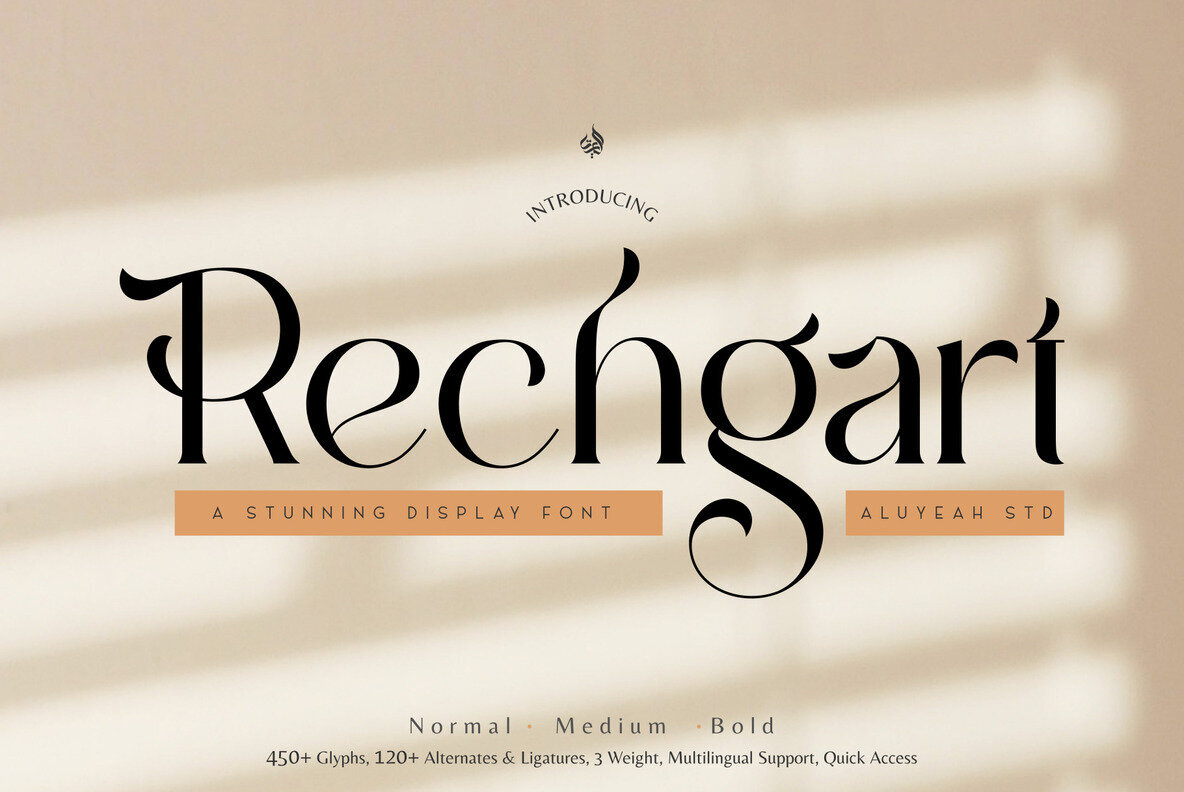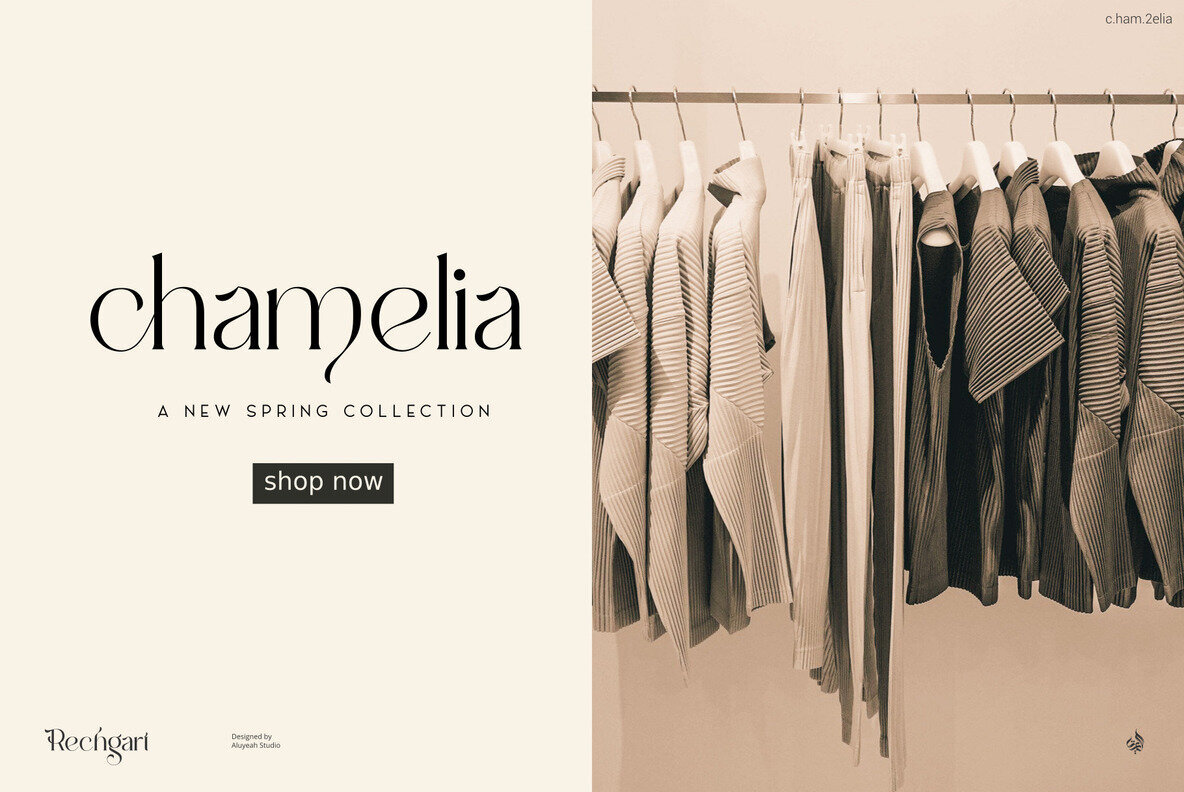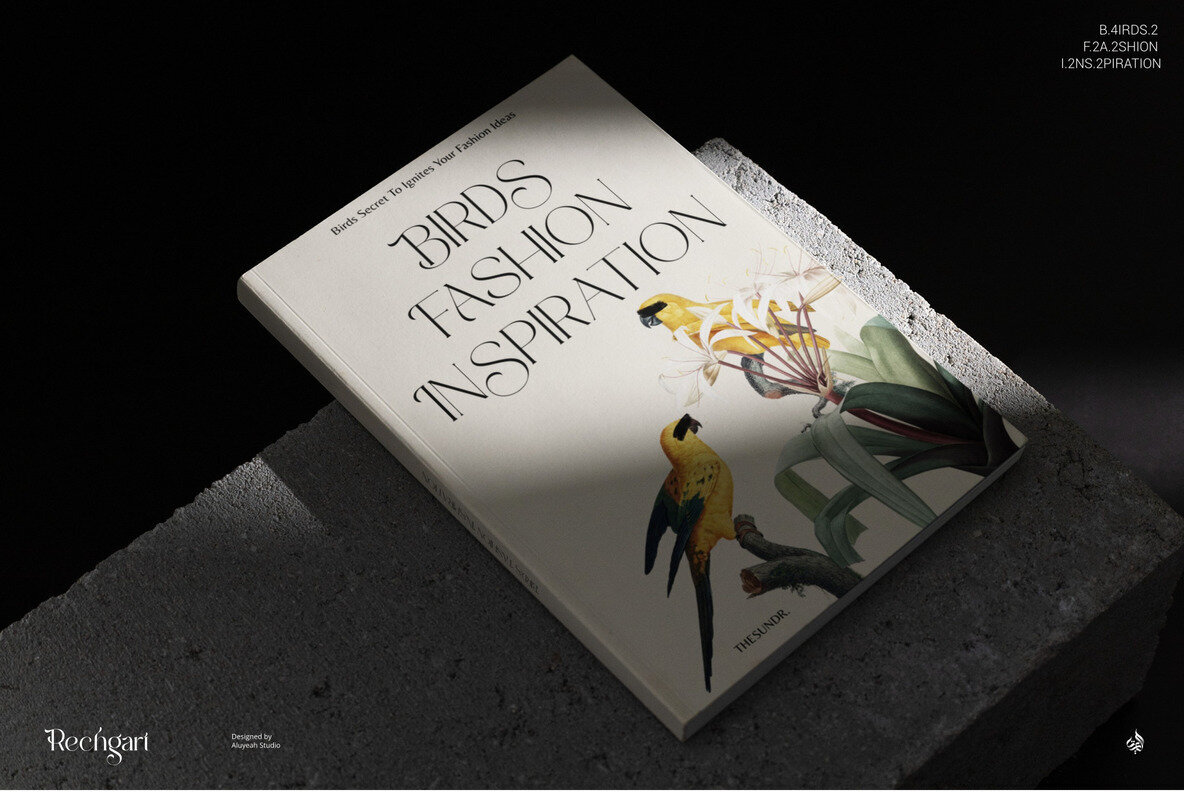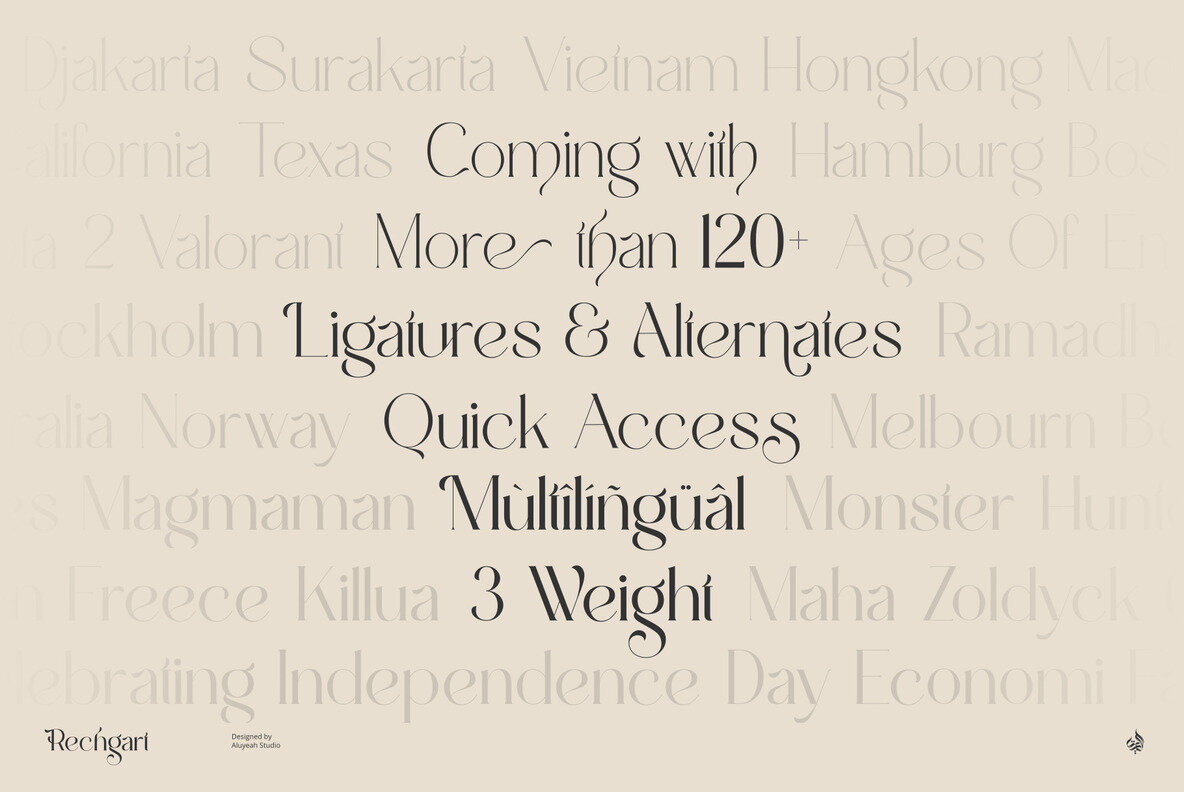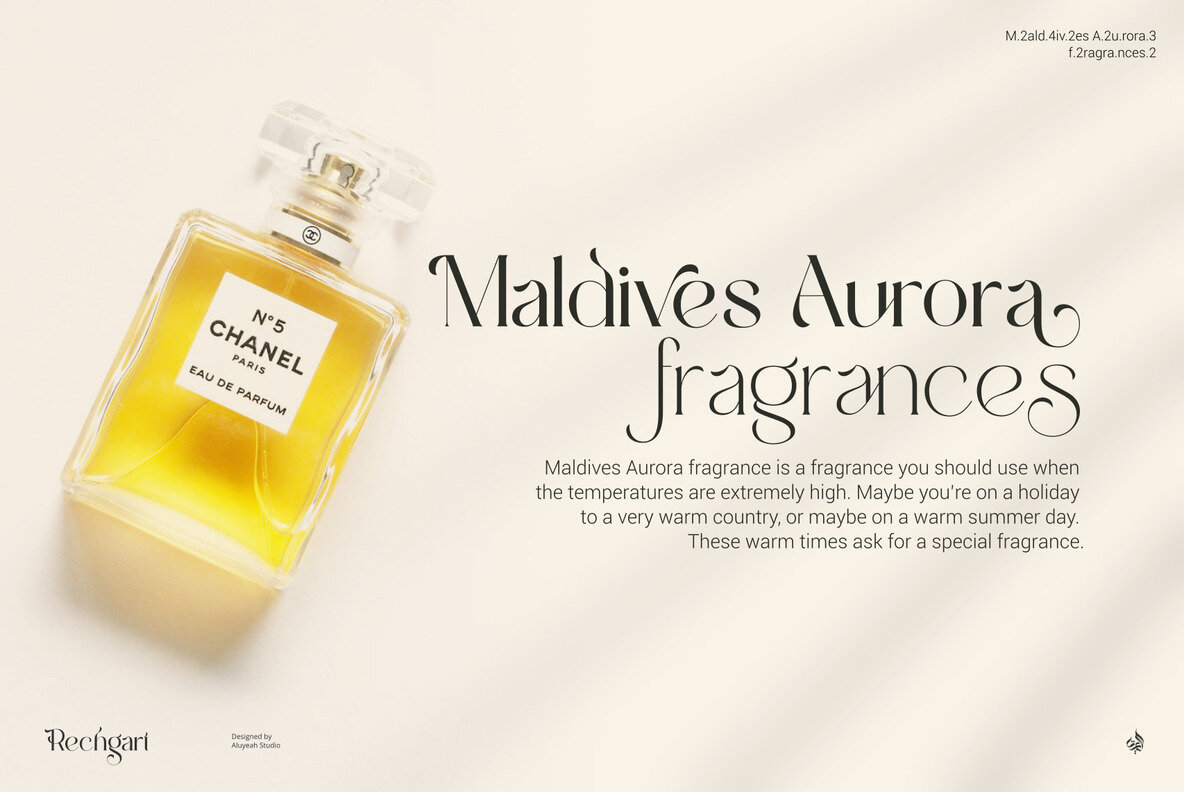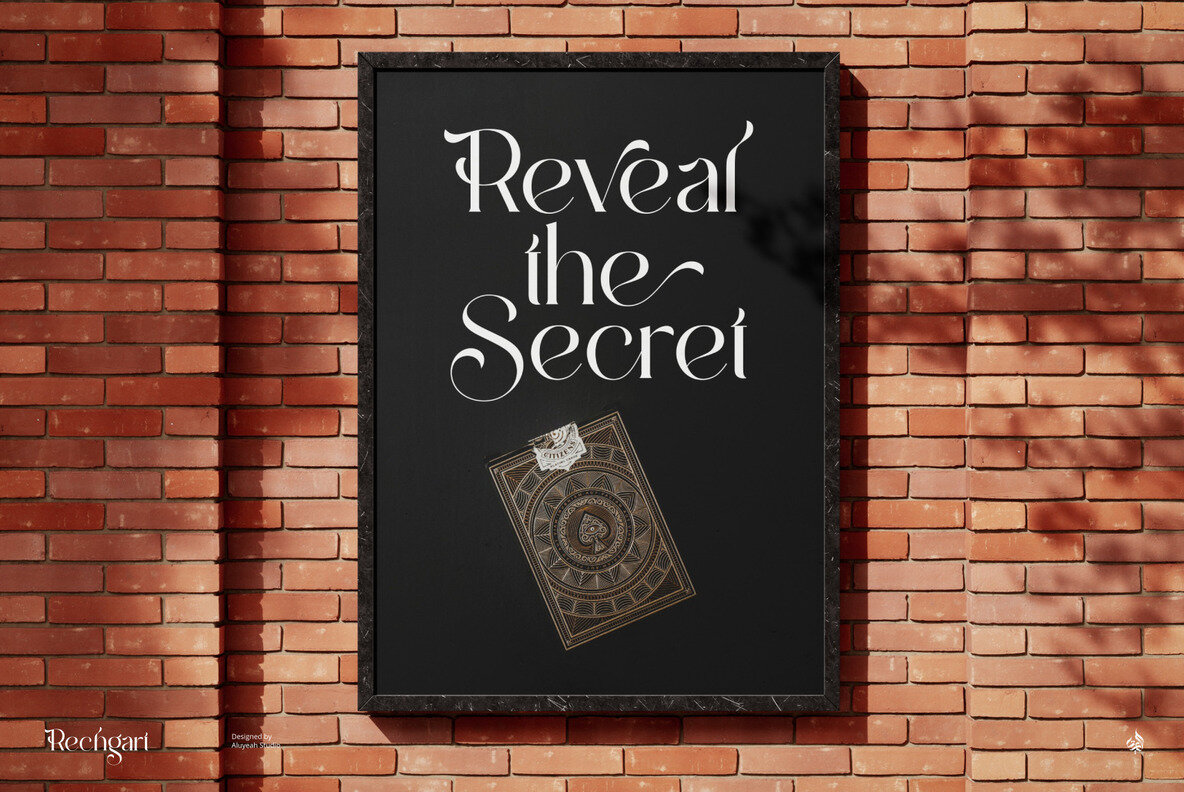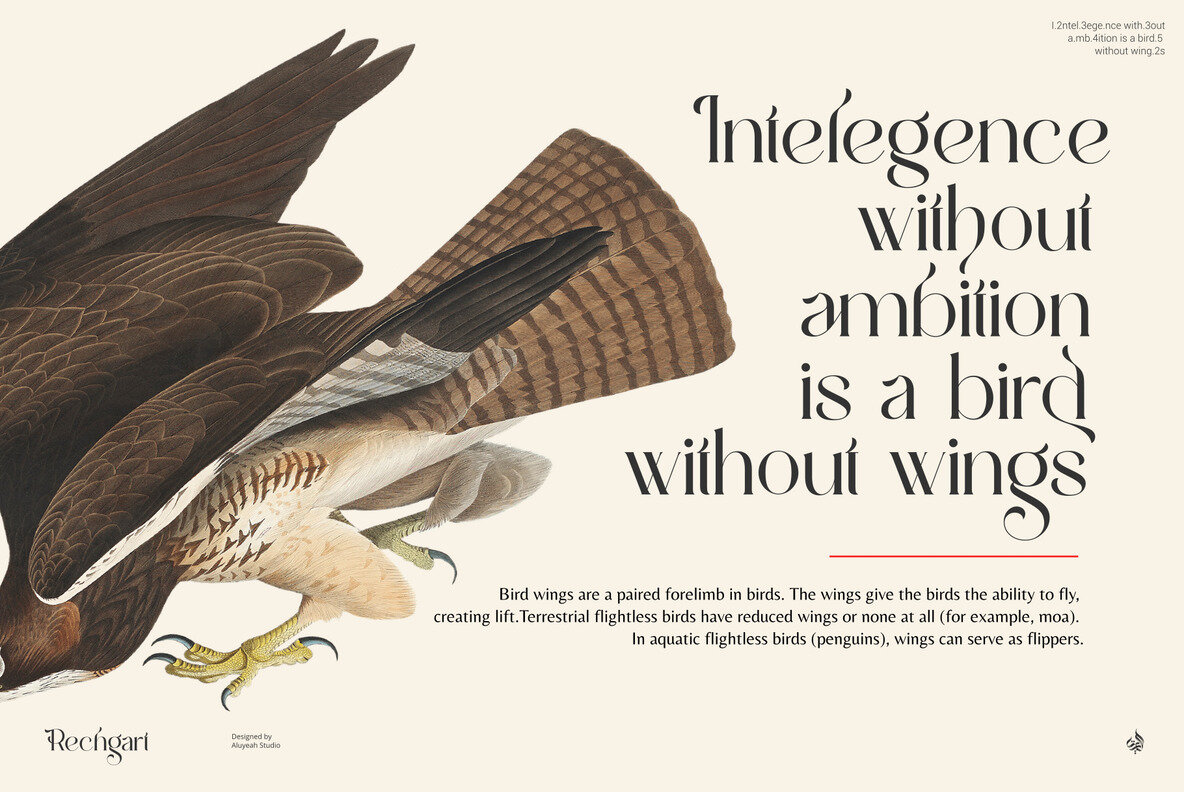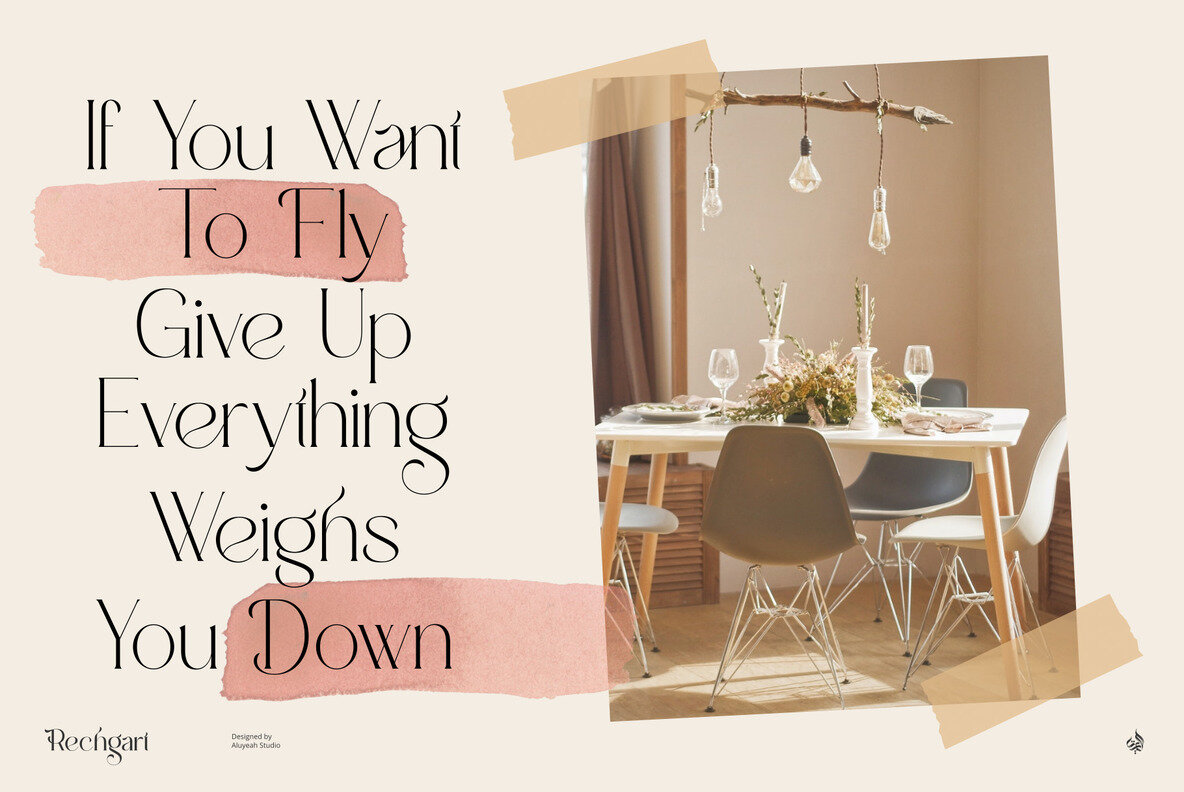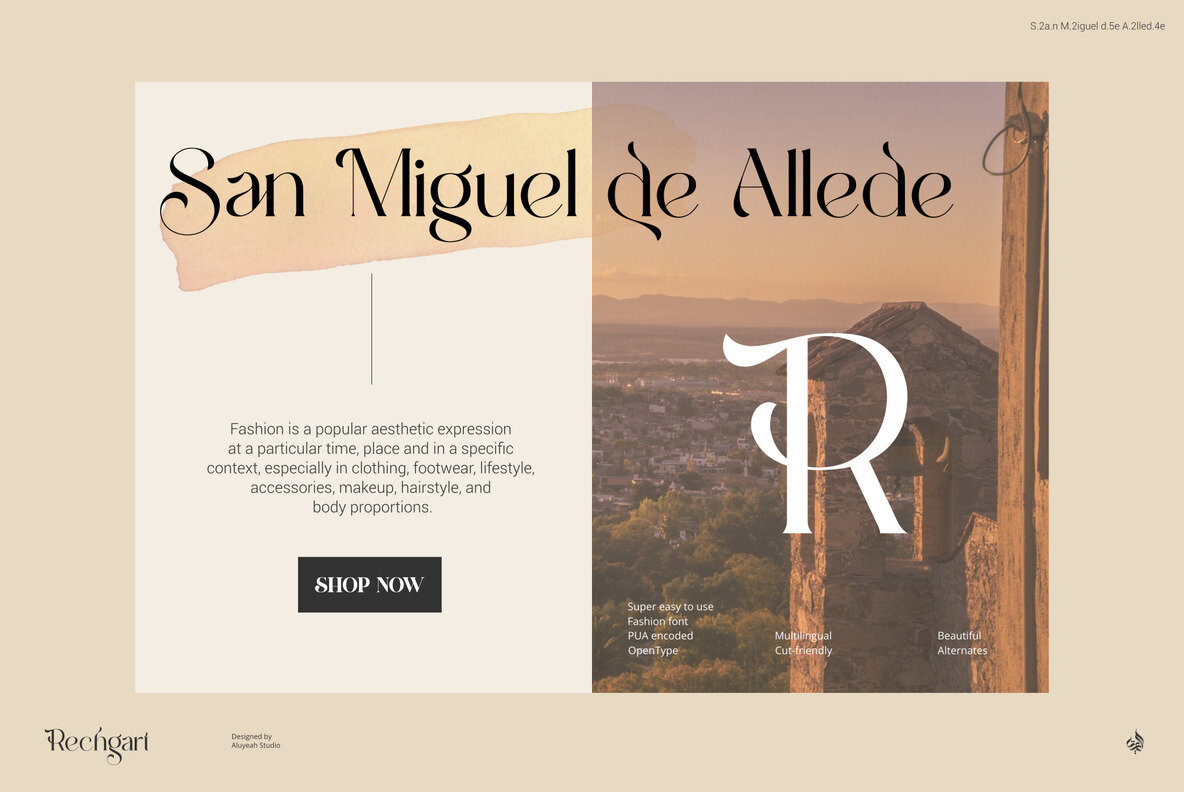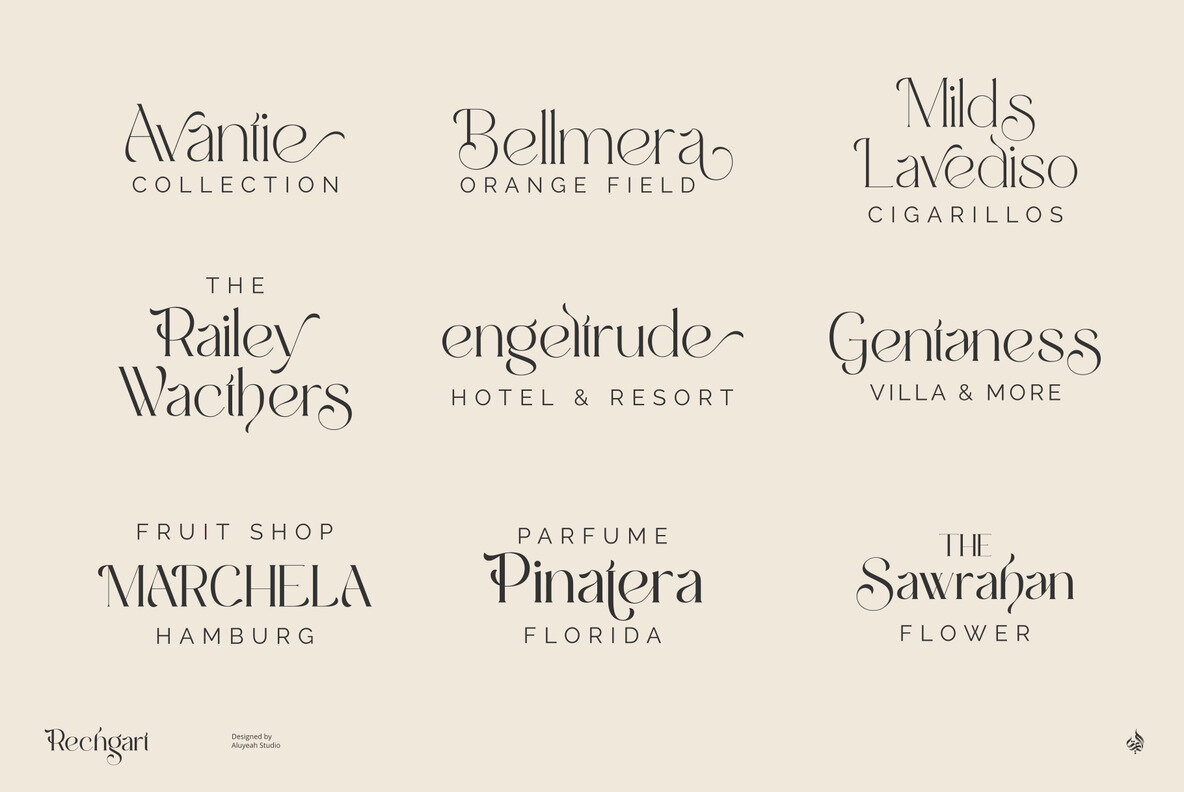
Rechgart Font
Rechgart is a breathtaking display font, drawing inspiration from the delicate elegance of bird feathers. It comes with over 120 unique alternates and ligatures, providing a myriad of creative possibilities for your projects. Offered in three different weights, Rechgart ensures you have seamless access to alternate characters, allowing you to effortlessly enhance the authenticity and charm of your designs. Rechgart is perfect for those looking to add a unique and stunning touch to their design work. Whether you're crafting a poster, logo, or any other creative piece, this font will make your design stand out.Rechgart: A Stunning Display Font